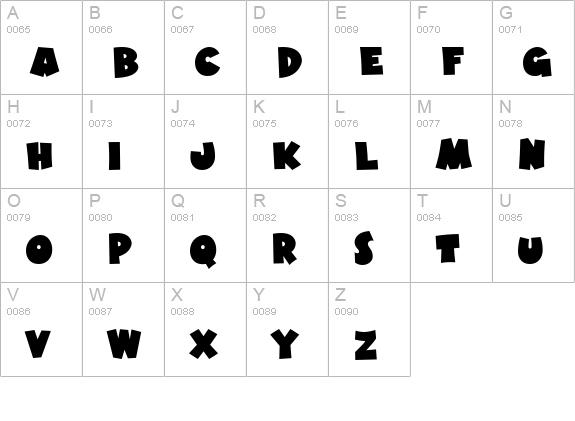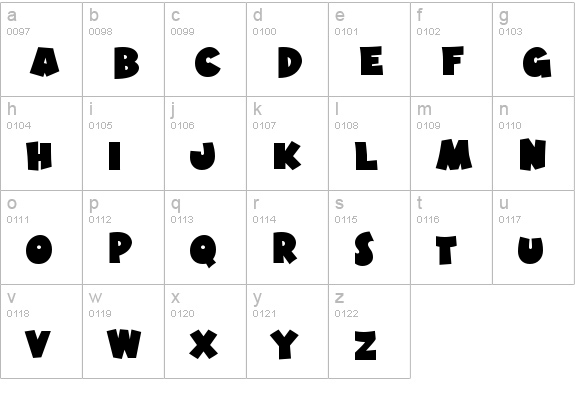
Hot Mustard BTN Font Details
Hot Mustard BTN is a bold and eye-catching display font that is sure to make your designs stand out. With its unique and stylish look, this font is perfect for headlines, posters, logos, and more. The sharp edges and modern style give it a contemporary feel that will make any project pop. What's even better is that Hot Mustard BTN is available for free download at FontsMarket.com. This means that you can start using this amazing font in your projects right away, without having to worry about any licensing fees. So why wait? Download Hot Mustard BTN today and take your designs to the next level!